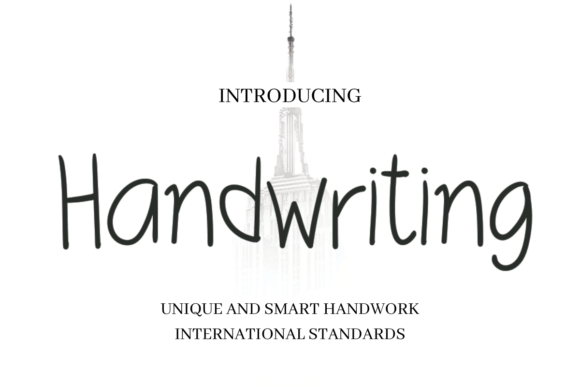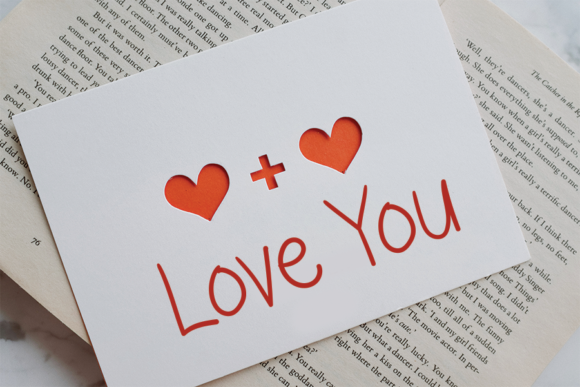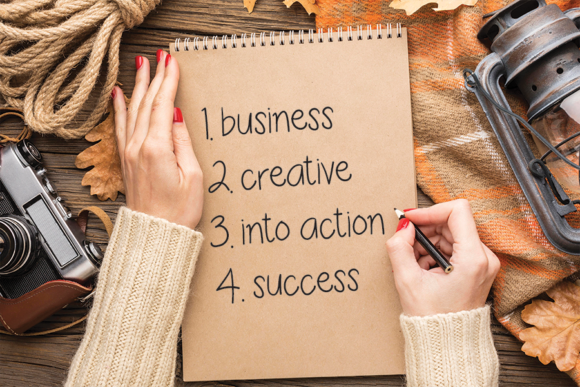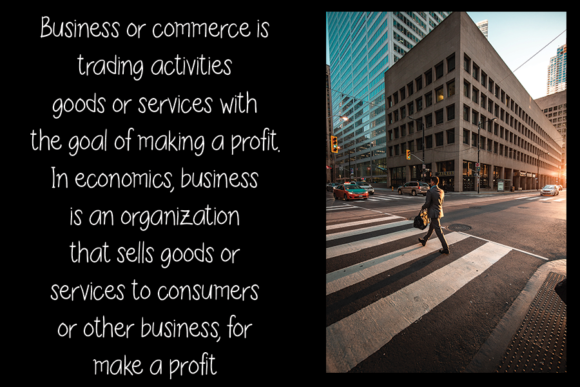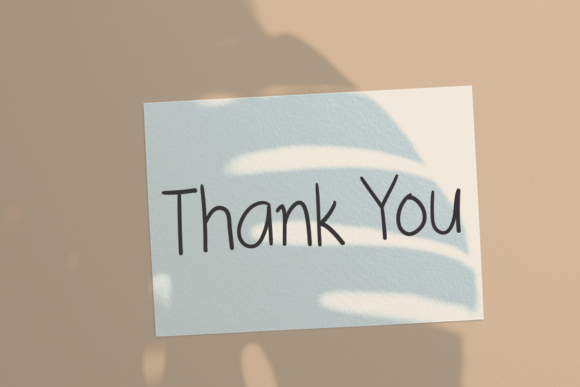
Handwriting Font
About Handwriting Font
Handwriting feels equally charming and elegant. It features an incredibly classic style, while still keeping a friendly feel. Handwriting is the perfect font for making original and outstanding designs.